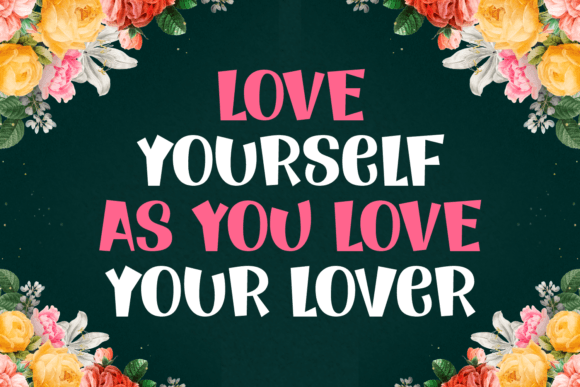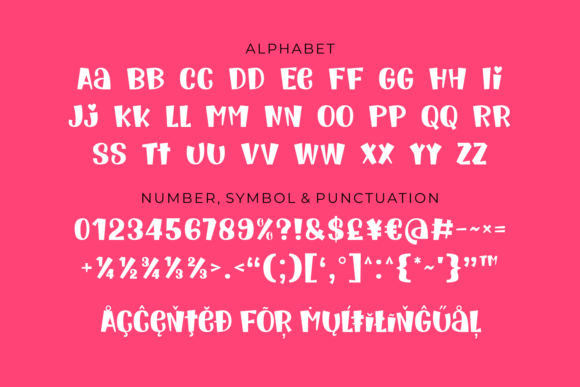
The Elusive Search for the Perfect Font: My Encounter with Elsia
I still remember the frustration of scrolling through endless font libraries, searching for that one perfect typeface that would bring my design project to life. It was for a client’s branding project, and I needed something that would capture the essence of their playful yet elegant brand. That’s when I stumbled upon Elsia, a bold, whimsical, and lovely display font that instantly caught my attention.
Elsia is more than just a font – it’s a statement piece that can elevate any design with its unique charm and personality. In this article, I’ll share my experience with Elsia, its features, and how to make the most of it in your designs.
First Impressions: What I Love About Elsia
Here’s what makes Elsia stand out:
- ✨ Unique and playful aesthetic: Elsia’s bold strokes and intricate details give it a whimsical feel that’s perfect for headlines, titles, and branding materials.
- ✅ Elegant and refined: Despite its playful nature, Elsia exudes elegance and sophistication, making it suitable for a wide range of design projects.
- 💡 Highly versatile: Elsia can be used for various design applications, from logos and titles to packaging and advertising.
The Not-So-Perfect: Small Quirks and Limitations
While Elsia is an excellent font, it’s not without its quirks:
- 🤔 Limited use for body text: Elsia’s bold and decorative nature makes it less suitable for body text. It’s best used for headlines, titles, and short paragraphs.
- ⚠️ Some glyphs may require manual adjustment: Depending on the design application, some glyphs may need manual adjustment to ensure proper spacing and alignment.
The Story Behind Elsia
Elsia was designed with the intention of creating a font that would bring a sense of joy and wonder to any design project. Its creator drew inspiration from various sources, including vintage typography, hand-drawn lettering, and modern design trends. The result is a font that’s both playful and elegant, perfect for designers looking to add a touch of personality to their work.
| Font Name | Elsia Font |
| What is Elsia best used for? | Elsia is best used for headlines, titles, logos, and branding materials that require a bold and eye-catching typographic element. |
| Is Elsia suitable for body text? | No, Elsia is not suitable for body text due to its bold and decorative nature. It’s best used for short paragraphs or titles. |
| Does Elsia support OpenType features? | Yes, Elsia supports OpenType features, including stylistic alternates and glyphs. |